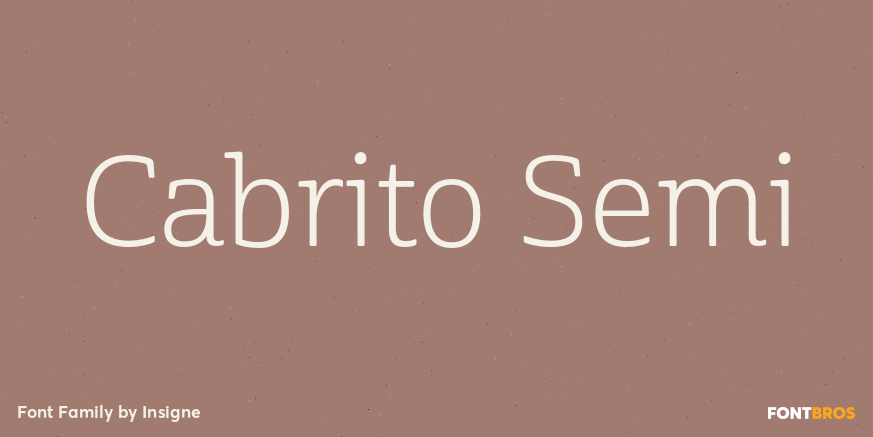
Cabrito Semi
About Cabrito Semi
Relax. Deep breath. And step away to font nirvana with Cabrito Semi. Like its Cabrito relatives, Semi\’s handwriting-inspired feel is mellow and care-free. But don\’t misunderstand us. Even with its fun-loving peculiarities, this free spirit will command…